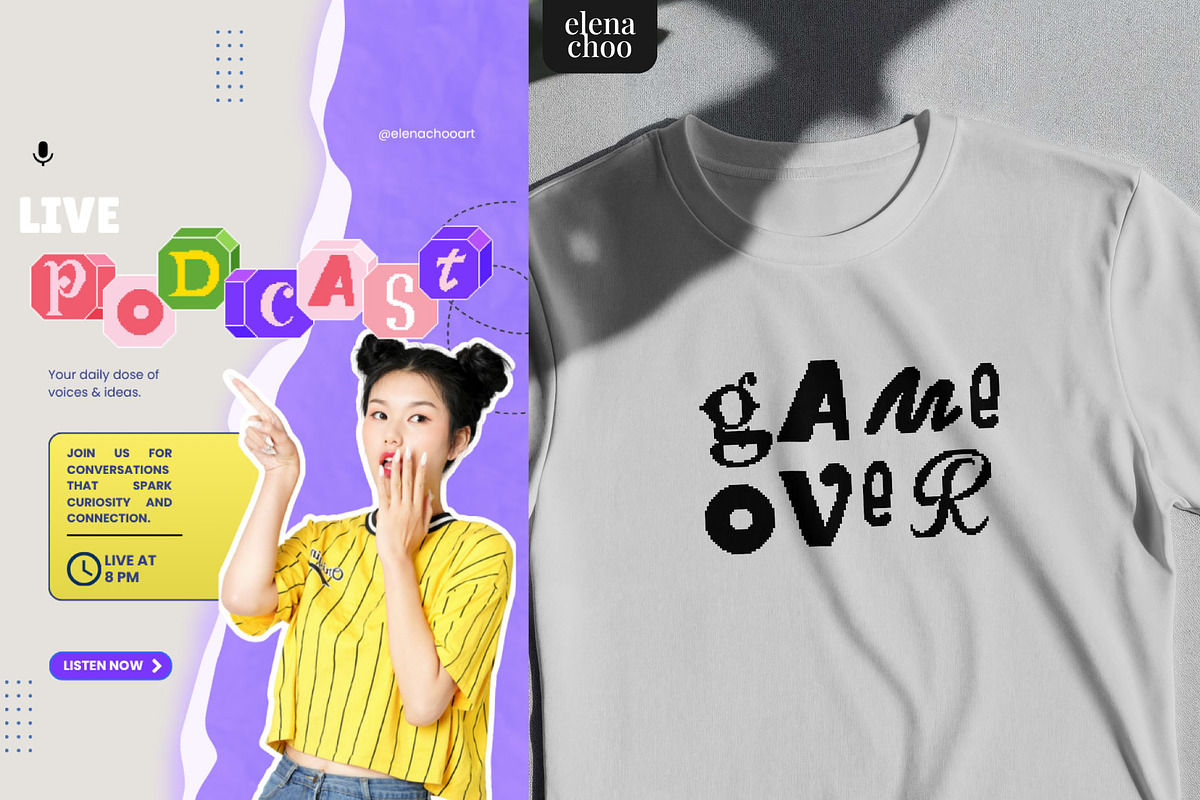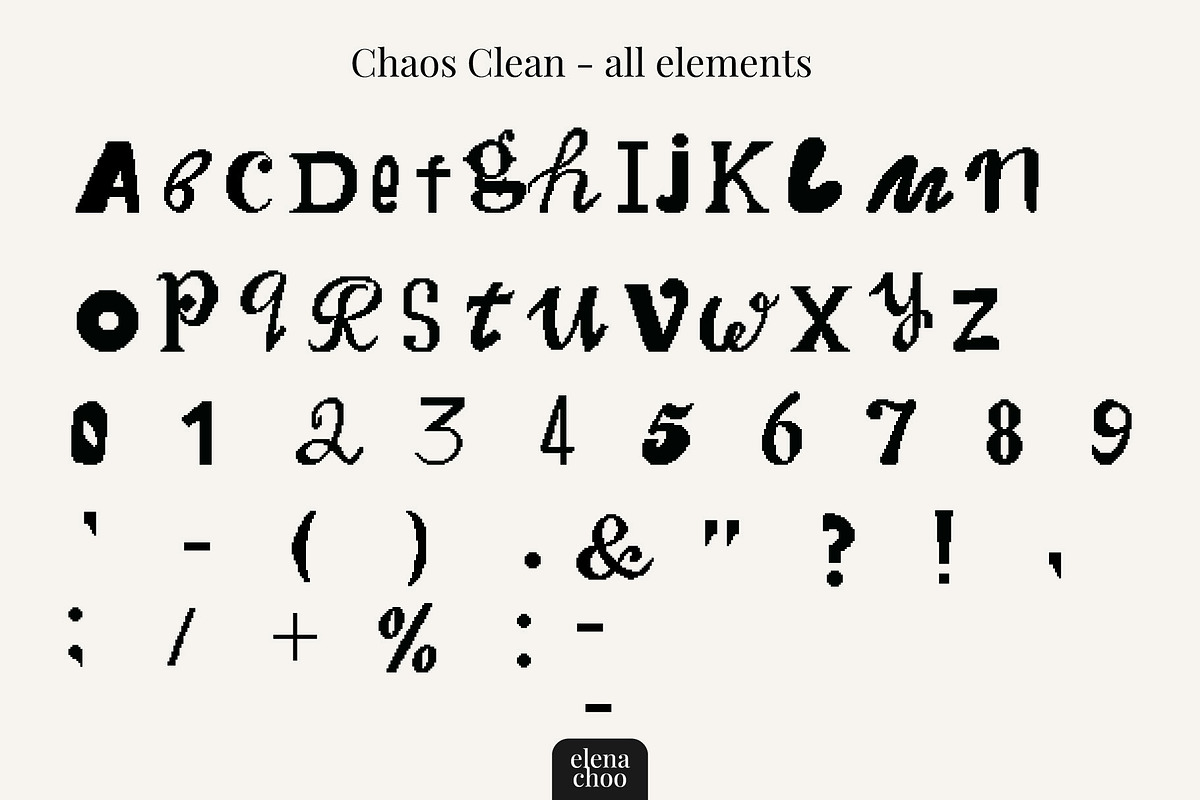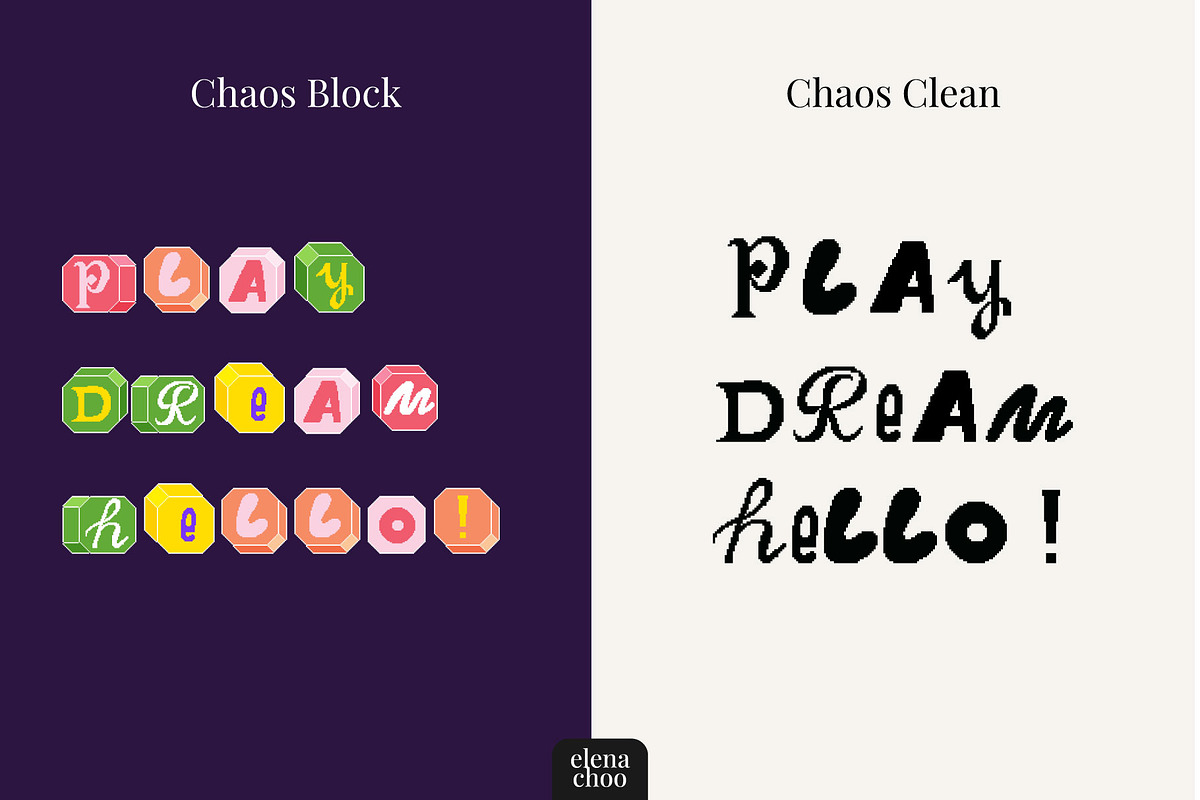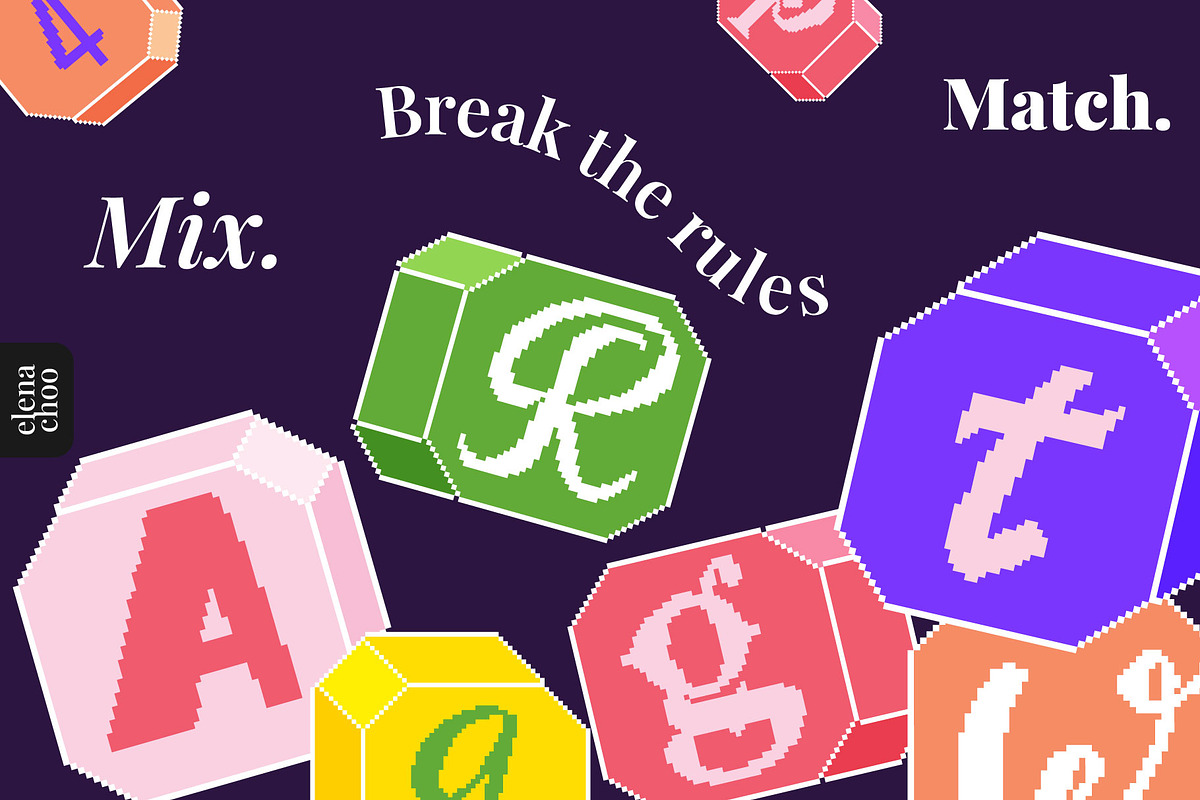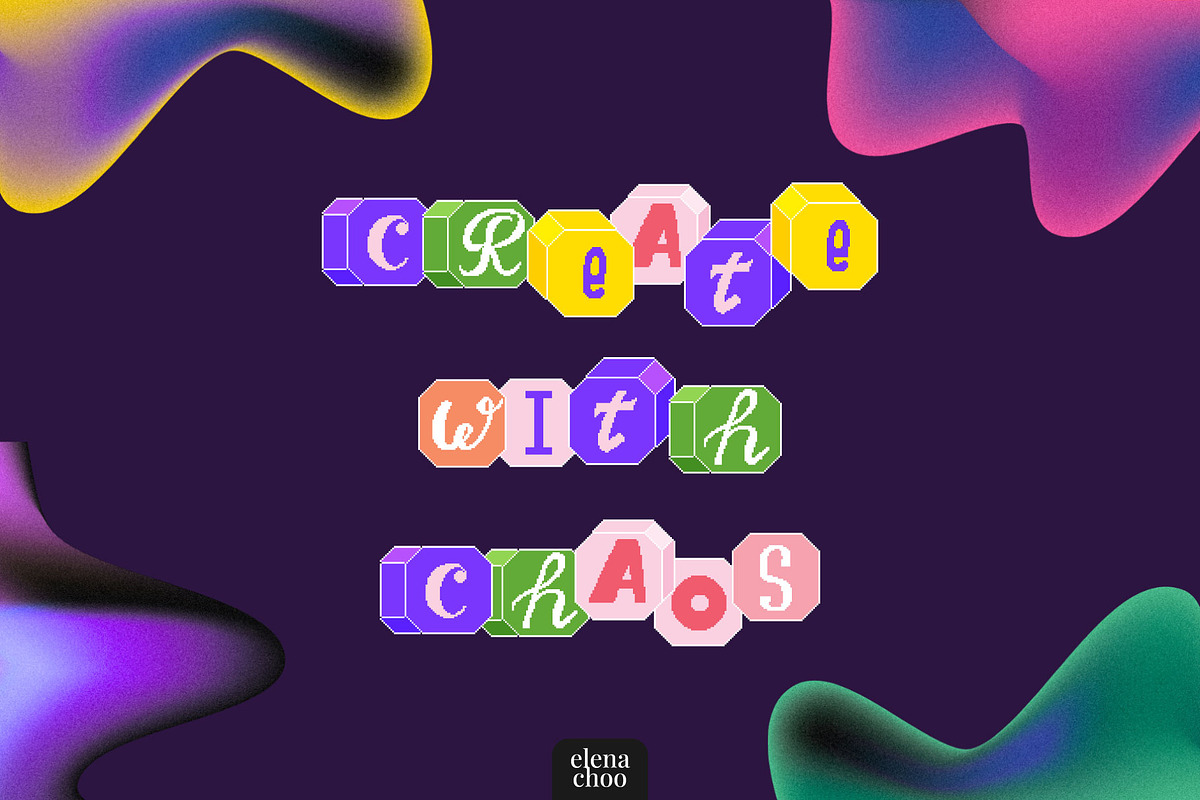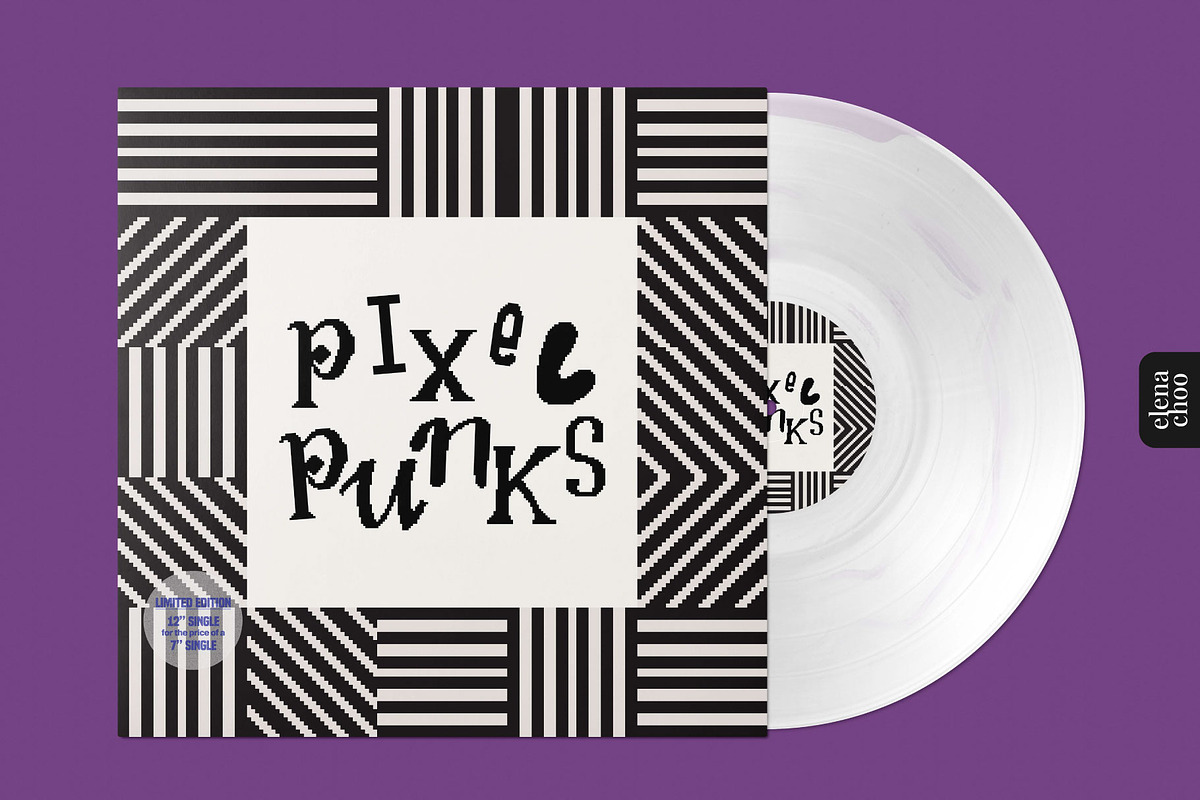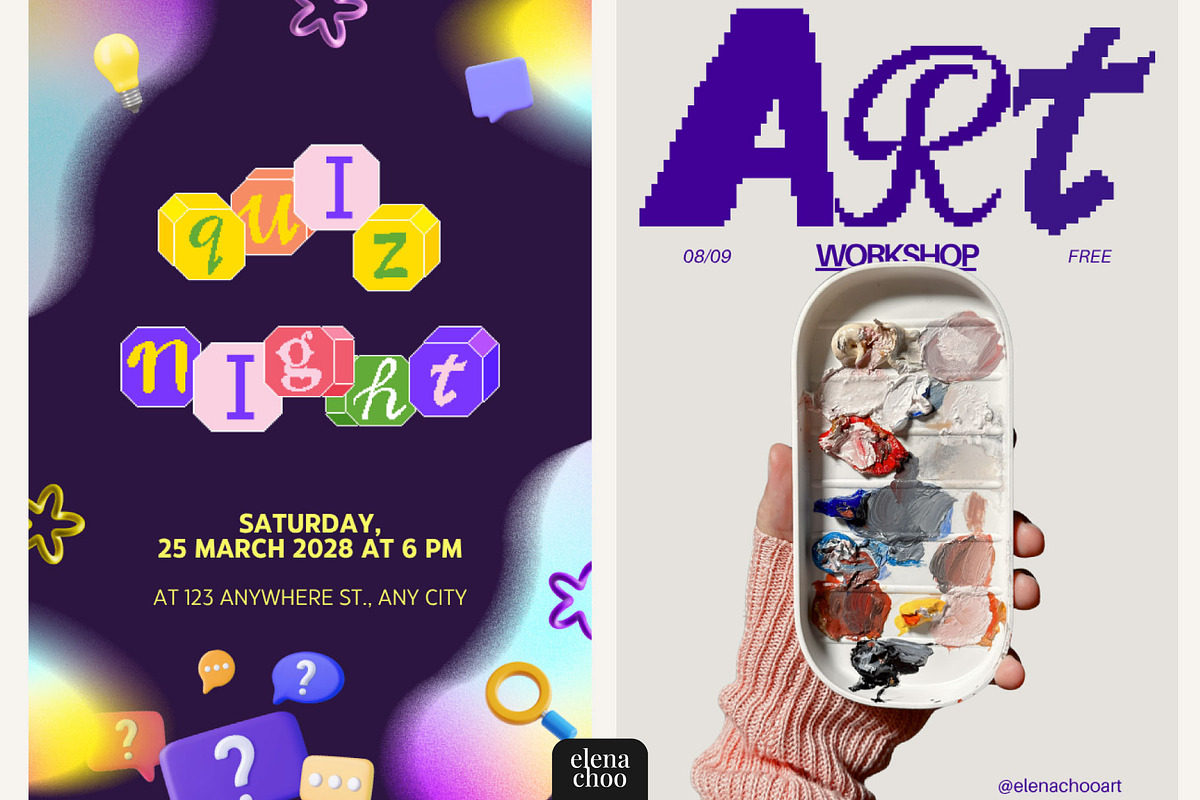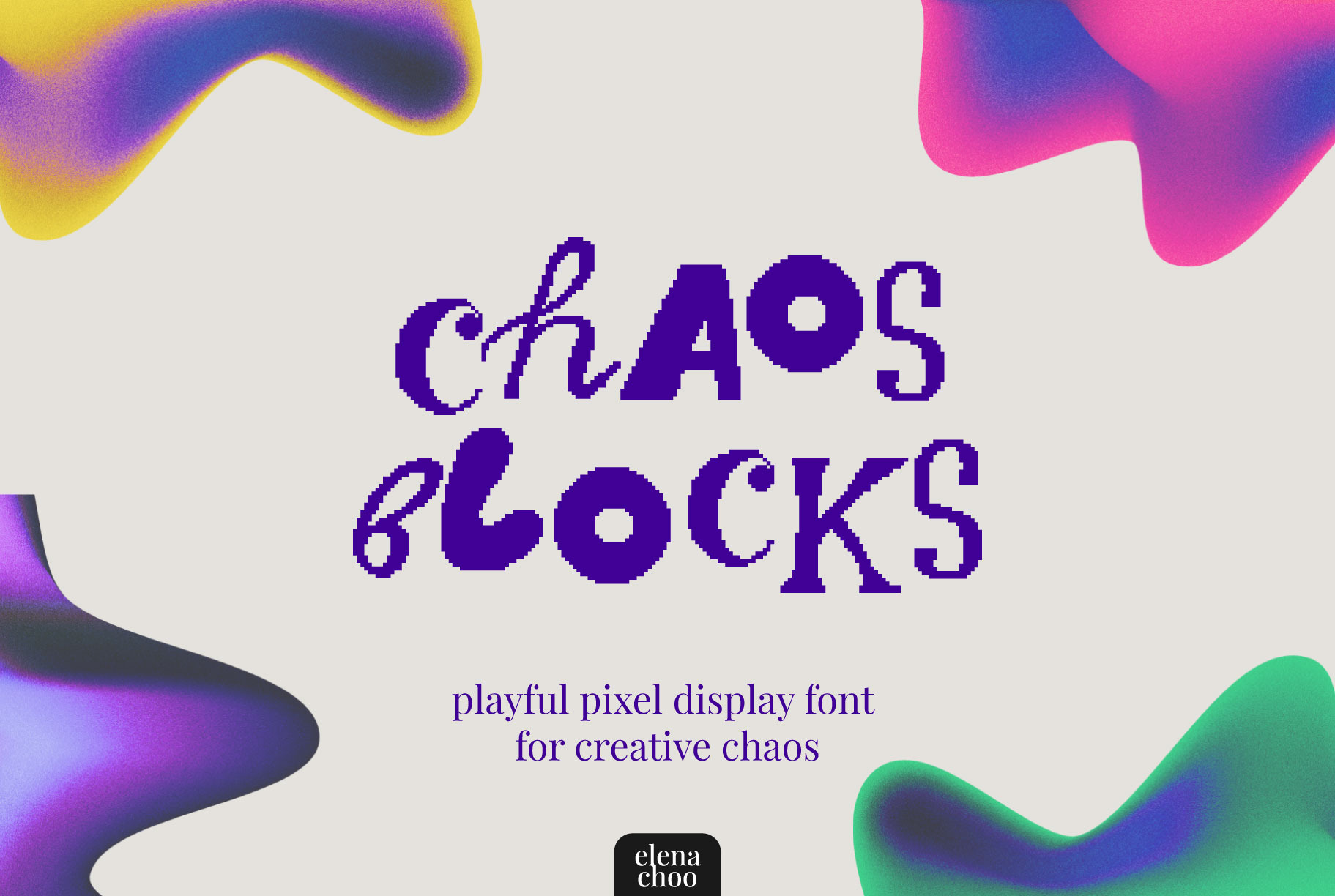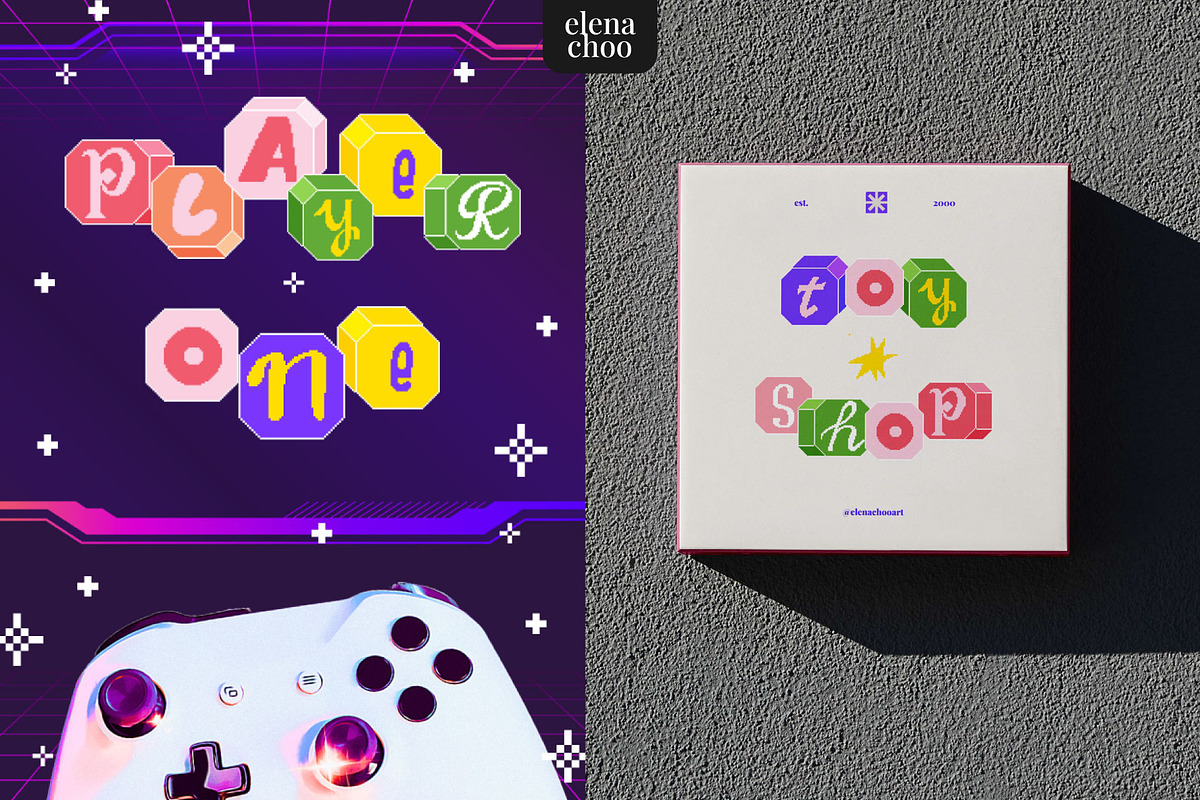
Chaos Blocks - playful pixel font
Chaos Blocks: a pixel font that breaks all the rules
Remember cutting letters from magazines for that art project? We turned that chaotic energy into a pixel font. Each letter lives on its own colorful block - some 2D, some 3D, all attitude. Perfect for individuals who don't take themselves too seriously.
- Full English colorful alphabet on blocks (mixed 2D/3D styles)
- Standalone English letters (clean version)
- Numbers & basic punctuation
This font is ideal for:
- children’s design
- gaming projects
- party invitations
- social media graphics
- posters & stickers
- craft projects
- YouTube thumbnails
- pixel art design packs
- branding for fun, quirky products
Type, play, experiment - every word looks different in the most delightful way